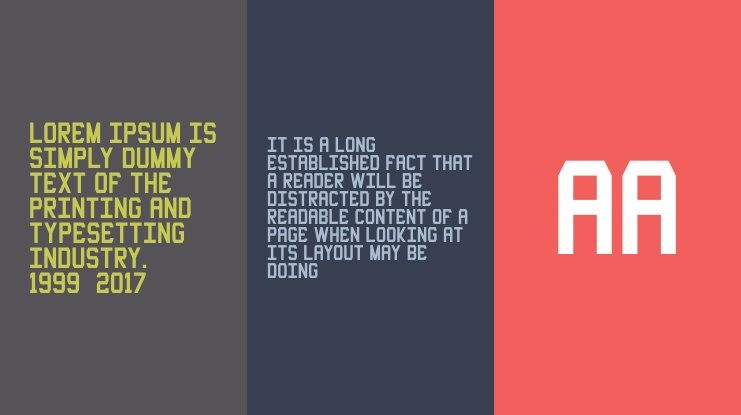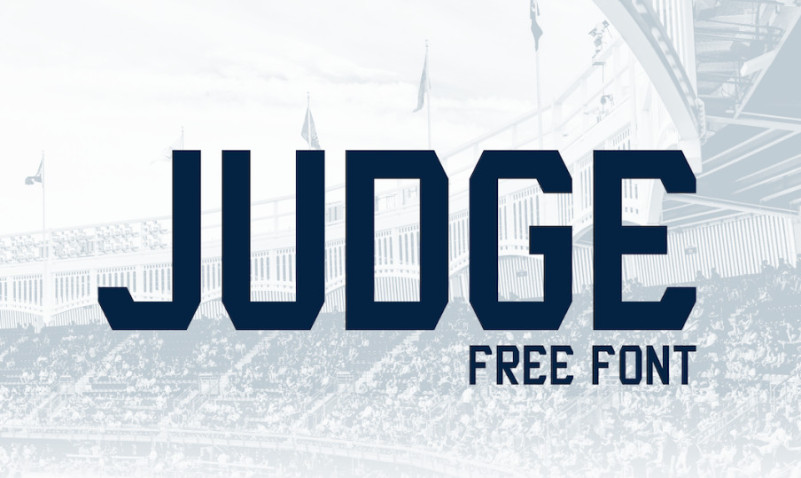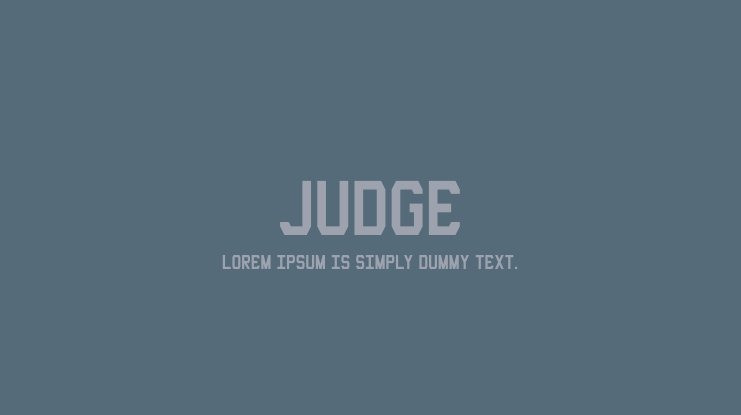
Judge Typeface
Judge Display Font by Nathandawdy is a free font designed in celebration of Aaron Judge’s 2022 MVP season, 62 Home Runs, and 9-year contract to stay in pinstripes.
Judge is a display font and contains uppercase letters, numbers, and a very few symbols.